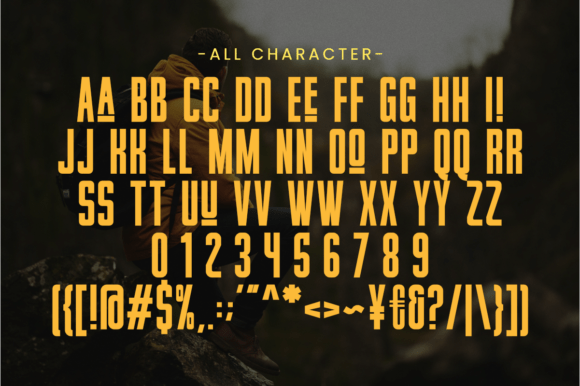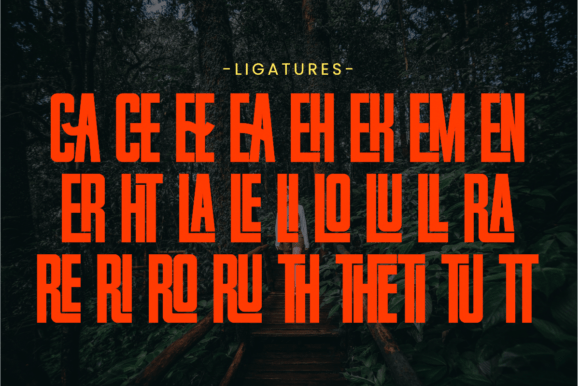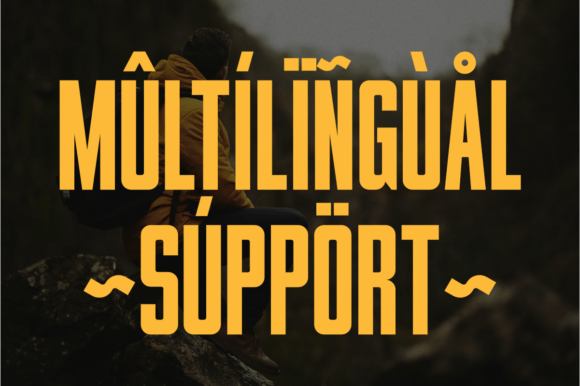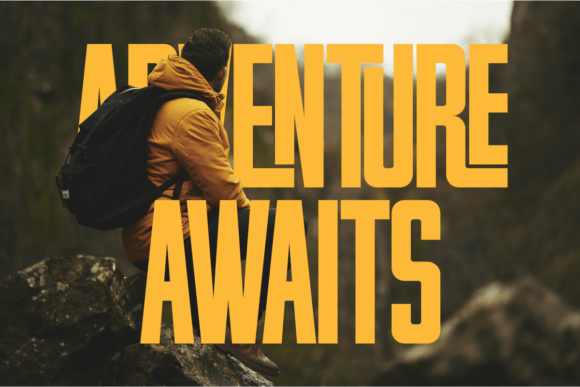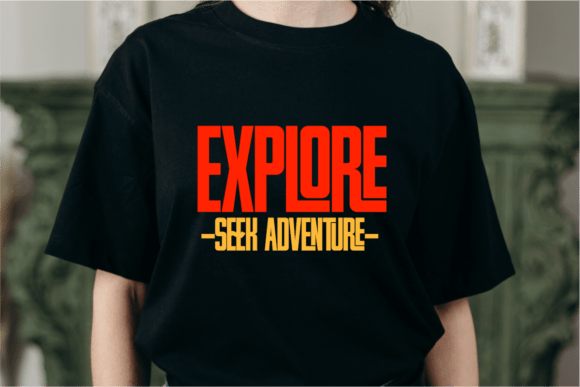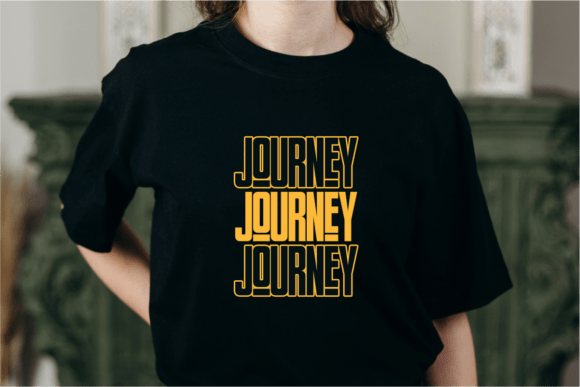
Introducing Adventura Font: The Ultimate Choice for Bold and Impactful Typography
In the world of design, typography plays a crucial role in conveying messages, evoking emotions, and creating lasting impressions. When it comes to making a statement, a bold and modern font is essential. This is where Adventura Font comes into play – a stunning condensed sans-serif font that is specifically designed for powerful and impactful typography.
The Design Philosophy Behind Adventura
Adventura Font is the brainchild of designers who sought to create a typeface that embodies strength, confidence, and clarity. With its tall and sleek letterforms, Adventura exudes a sense of modernity and sophistication. The condensed design ensures that the font is perfect for headlines, posters, branding, sports designs, adventure gear, logos, and editorial layouts.
Key Features of Adventura Font
- Bold and Modern Design: Adventura’s bold and modern design makes it perfect for creating striking headlines, posters, and branding materials.
- Condensed Sans-Serif: The condensed sans-serif design ensures that the font is clean, sleek, and highly legible.
- Tall and Sleek Letterforms: The tall and sleek letterforms of Adventura give it a unique and distinctive look that is sure to grab attention.
- Highly Versatile: Adventura is a highly versatile font that can be used for a wide range of design projects, from sports designs and adventure gear to logos and editorial layouts.
Use Cases for Adventura Font
Adventura Font is perfect for designers and crafters who want to create impactful and memorable designs. Here are some use cases where Adventura truly shines:
- Headlines and Posters: Create striking headlines and posters that grab attention with Adventura’s bold and modern design.
- Branding and Logos: Use Adventura to create bold and memorable branding materials, including logos, business cards, and letterheads.
- Sports Designs: Adventura’s sleek and modern design makes it perfect for sports designs, including jerseys, equipment, and promotional materials.
- Adventure Gear: Create bold and eye-catching designs for adventure gear, including outdoor apparel, equipment, and accessories.
- Editorial Layouts: Use Adventura to create stylish and impactful editorial layouts, including magazine covers, articles, and advertisements.
Why Choose Adventura Font?
With so many fonts available, why choose Adventura? Here are just a few reasons why Adventura stands out from the crowd:
- Unique and Distinctive Design: Adventura’s bold and modern design ensures that your designs stand out from the crowd.
- Highly Legible: The condensed sans-serif design ensures that Adventura is highly legible, even at small sizes.
- Versatile: Adventura is a highly versatile font that can be used for a wide range of design projects.
| Font Name | Adventura Font |
| Author | Funtype Co. |
In conclusion, Adventura Font is a bold and modern condensed sans-serif font that is perfect for designers and crafters who want to create impactful and memorable designs. With its unique and distinctive design, high legibility, and versatility, Adventura is the ultimate choice for powerful and impactful typography. Whether you want to create striking headlines, bold branding materials, or stylish editorial layouts, Adventura is the perfect choice.